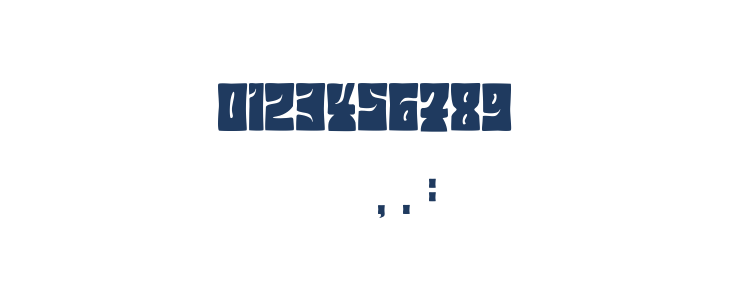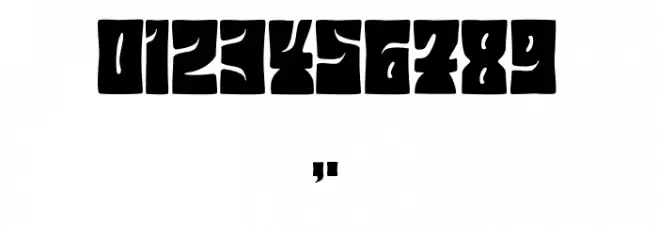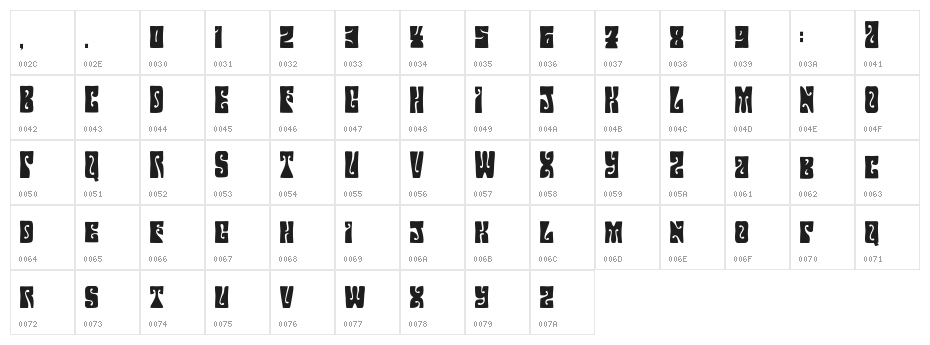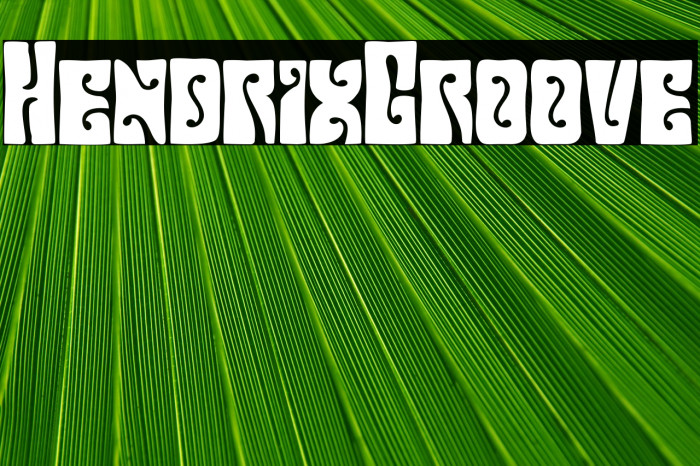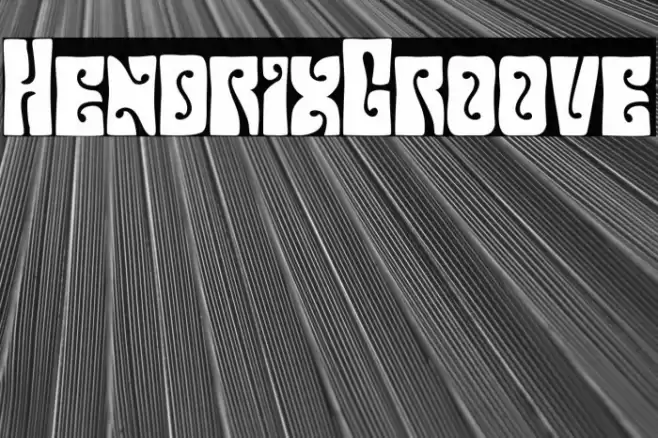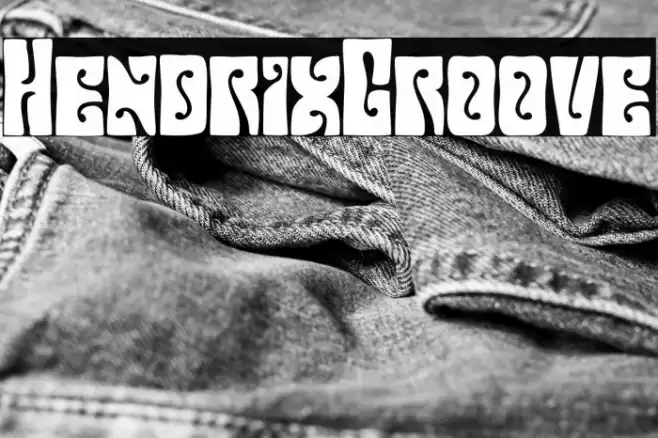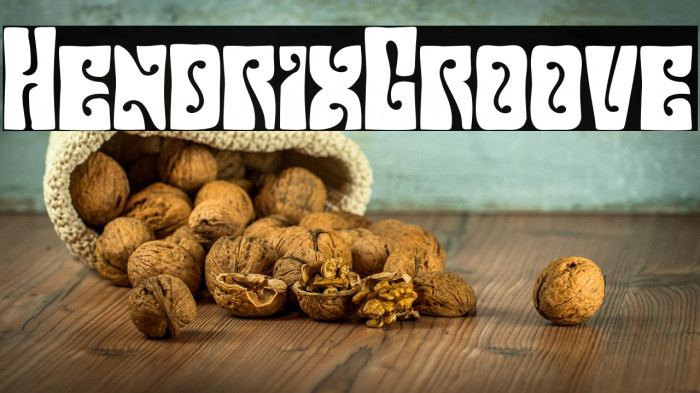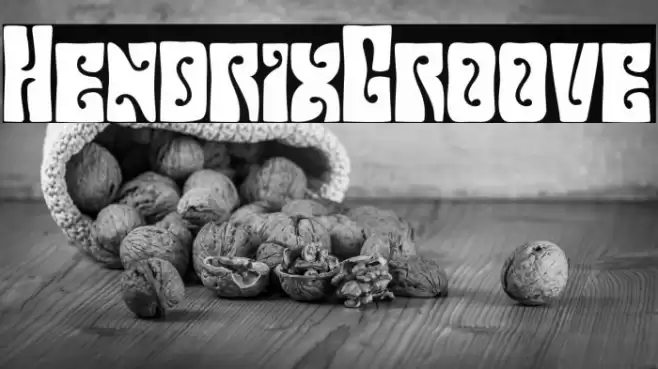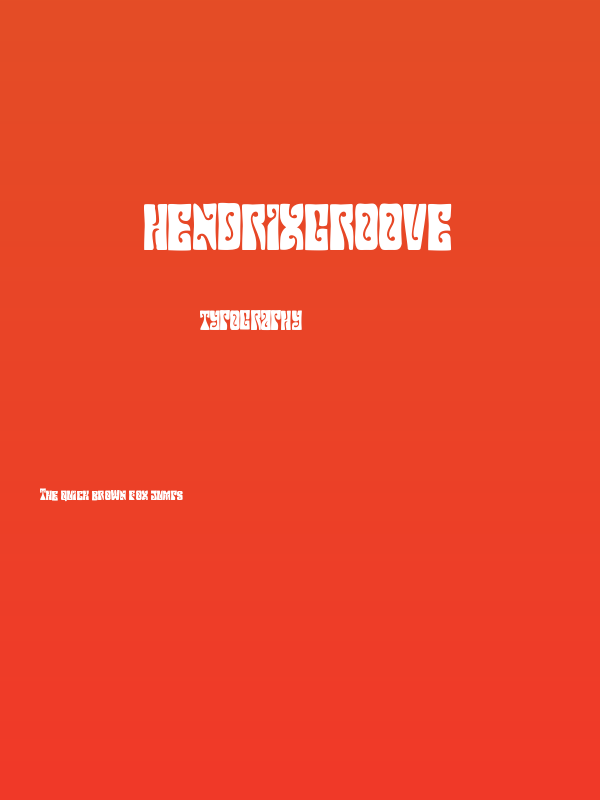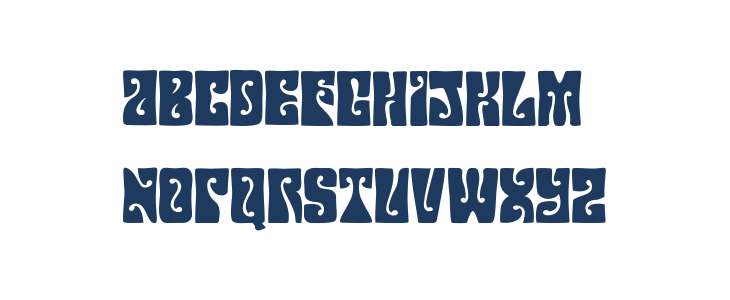
HendrixGroove Font
HendrixGroove Description
This font exudes a bold, psychedelic vibe reminiscent of the 1960s and 70s. Its thick, blocky letters are infused with swirling, organic shapes that create a sense of movement and fluidity. The characters are tightly packed, enhancing the boldness and impact of the text. The font's unique style makes it a standout choice for projects that require a retro or vintage aesthetic. Its high contrast between the thick strokes and the negative space within the letters adds to its eye-catching appeal. This font is perfect for capturing attention and conveying a sense of fun and creativity.
| Proposed Projects | Ideal for music festival posters, retro-themed branding, album covers, and creative advertising. |